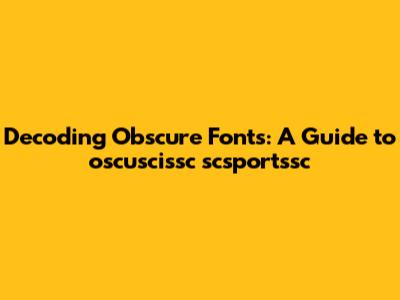
- WhatTheFont! by MyFonts: This is a classic and widely used tool. Simply upload an image, and WhatTheFont! will attempt to identify the font. It's particularly good at recognizing fonts from the MyFonts library, but it also has a comprehensive database of other fonts.
- Font Squirrel Matcherator: Font Squirrel is known for its collection of free, high-quality fonts. Their Matcherator tool allows you to upload an image and find similar free fonts.
- Adobe Fonts: If you're a Creative Cloud subscriber, Adobe Fonts offers font identification as part of its service. It's seamlessly integrated with Adobe's design software, making it a convenient option for many designers.
- Serifs vs. Sans-Serif: Does the font have serifs (the small decorative strokes at the ends of letters) or is it sans-serif (without serifs)? This is the first and most basic distinction.
- Letter Proportions: Are the letters wide or narrow? Are they tall or short? Pay attention to the overall proportions of the letters.
- Stroke Contrast: Does the font have high stroke contrast (thick and thin strokes) or low stroke contrast? This is particularly important for serif fonts.
- Specific Letterforms: Look for distinctive features in specific letters, such as the shape of the 'g', the 'a', or the 'e'. These can be unique identifiers.
- Spacing and Kerning: How is the spacing between letters? Is the kerning (the adjustment of space between individual letters) tight or loose? This can affect the overall appearance of the font.
- Start with the Obvious: Before diving into advanced techniques, do a simple Google search for 'oscuscissc scsportssc font'. You never know, someone might have already asked about it, or it might be a (very oddly) named font available somewhere. You might get lucky!
- Break It Down: As we discussed earlier, that crazy name might contain clues. Try searching for 'scsportssc font' or 'scsports font'. Maybe it's related to a specific sports team or event. Even partial matches can lead you down the right path.
- Focus on Key Characteristics: Instead of getting hung up on the name, concentrate on the visual characteristics of the font. Is it serif or sans-serif? What's the stroke contrast like? Are there any unique letterforms? Use these features to narrow down your search in font libraries.
- Use Multiple Identification Tools: Don't rely on just one font identification tool. Try several different ones and compare the results. Each tool has its own strengths and weaknesses, and using multiple tools will increase your chances of finding a match.
- Test Different Images: If the initial image you're using isn't yielding good results, try using a different image of the font. A clearer image with better contrast can make a big difference.
- Consider Alternatives: Sometimes, you might not be able to find the exact font used in a design. In these cases, it's perfectly acceptable to look for similar fonts that capture the same aesthetic. Many font identification tools also offer suggestions for alternative fonts.
- Keep a Font Journal: Start a personal font journal or database. Whenever you identify a new font, note its characteristics, uses, and any other relevant information. This will help you build your knowledge of typography and make future font searches easier.
Hey guys! Ever stumbled upon a font name that looks like it was generated by a random character generator? Today, we’re diving deep into one of those intriguing, slightly baffling font identifiers: 'oscuscissc scsportssc'. Now, I know what you're thinking – what is that? Is it a typo? Is it some kind of secret code? Well, let’s get right to it and explore everything you need to know about identifying, understanding, and potentially even using fonts that fall into this obscure category.
What Exactly Is 'oscuscissc scsportssc'?
Okay, let's break this down. When you encounter a font name like 'oscuscissc scsportssc', the first thing to consider is that it might not be a formal font name at all. Often, these kinds of identifiers pop up due to errors in file naming, metadata issues, or even just quirky internal designations within specific design projects. It's not uncommon, especially when dealing with a large number of font files, for things to get a little… chaotic. Font identification can be tricky, and sometimes what appears to be the font name is simply an artifact of how the file was managed or processed.
Think of it like this: Imagine you’re organizing thousands of digital photos. You might end up with file names like 'IMG_3847_edited_final_version_COPY.jpg'. That's not the actual subject of the photo, but it tells you something about its history and status. Similarly, 'oscuscissc scsportssc' could be a clue, albeit a cryptic one, about the font's origin or usage. It could be a developer's internal label, a project-specific tag, or even a result of optical character recognition (OCR) gone a little haywire. Understanding font metadata helps in deciphering these mysteries.
Furthermore, the 'scsportssc' part might hint at a specific project or client – perhaps something related to sports. This could narrow down your search if you're trying to track down the actual font used. The key here is not to take the name at face value but to treat it as a piece of the puzzle. So, before you start tearing your hair out, realize that these weird names are more common than you think. They’re often just placeholders or mislabels, not some super-secret font designation known only to a select few. Keeping a cool head and using the right tools will help you crack the case. Remember, the goal isn't necessarily to find a font named 'oscuscissc scsportssc,' but to identify the visual characteristics of the font you're seeing. So, keep an open mind and enjoy the hunt!